1 Google Font Similar to Trade Gothic
Trade Gothic is a sans-serif font designed by Jackson Burke in 1948. It's focus was on advertising and headlines. It can be used in a combination of roman text fonts. It is a clean and easy to read font which is what makes it so popular.
So lets dive into one good free alternative for Trade Gothic.
What Google Fonts are Similar to Trade Gothic?
The best Google Font alternative for Trade Gothic is Libre Franklin.
Libre Franklin does a great job at matching almost all the lower case letters. There are some very minor differences, but you would really need to be paying a lot of attention to point them out.
Some of those minor differences include the loop on the "p" and the curved lower stroke of the "y".
Other than that they are very similar.
The same goes for the uppercase letters. I would argue that they are about 97% similar.
The main difference is going to be in the "Q". In Trade Gothic, the line goes all the way through while in Libre Franklin it simply has a tail. while in the
I put together some images to help you compare for yourself.
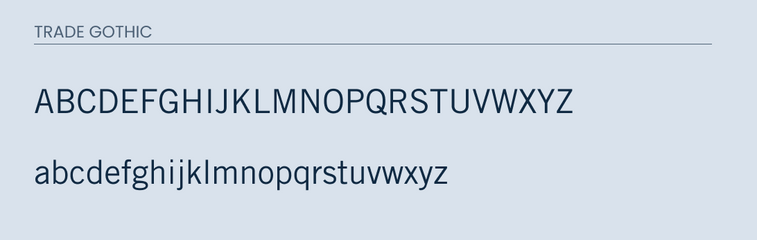
Final Thoughts
I have looked through a lot of different typefaces to find a good one to match and Libre Franklin was the only one really worth mentioning. It does a great job trying to match it. If you are in a position to do so, I always recommend supporting the designer and purchasing the font itself. However, I know that some designers are on a budget and need a free similar alternative.